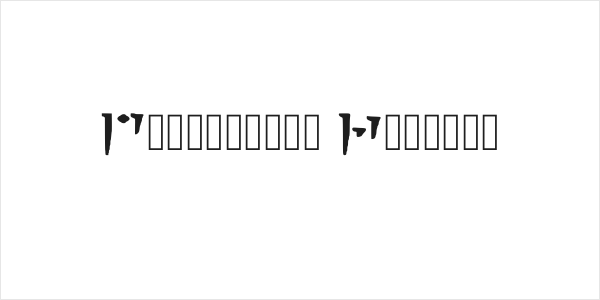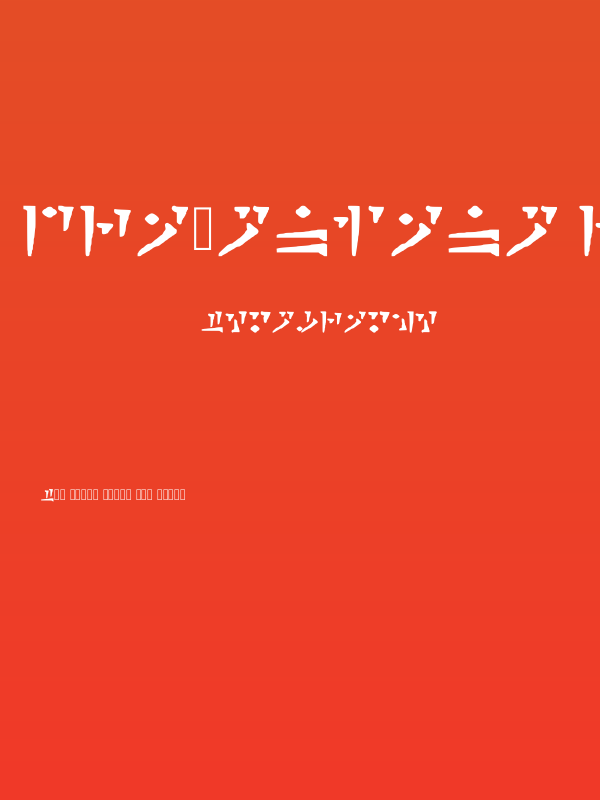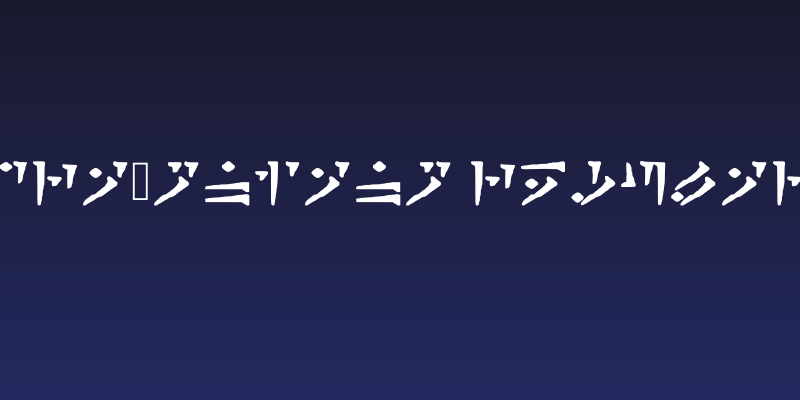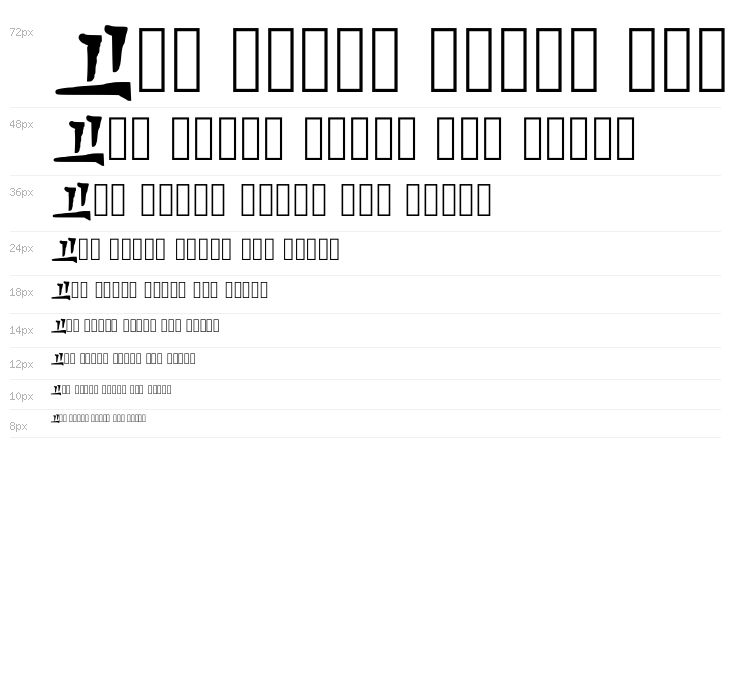
Draconiano Regular Font
Draconiano Regular Description
This font features a unique, angular design reminiscent of ancient scripts or runes. The characters are bold and have a distinct, sharp appearance with varying stroke thicknesses that give them a dynamic and somewhat aggressive look. The style is highly decorative, making it suitable for thematic or fantasy-related projects. The characters are evenly spaced, maintaining a consistent flow across text, which enhances readability despite its intricate design.
| Use Case | Logos, Headlines, Thematic Designs |
| Proposed Projects | Ideal for fantasy-themed designs, game titles, movie posters, or any project requiring a mystical or ancient aesthetic. |